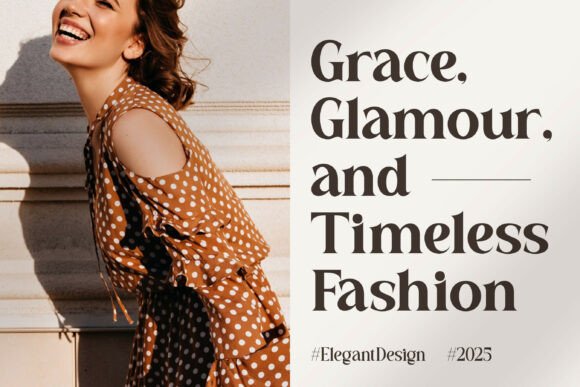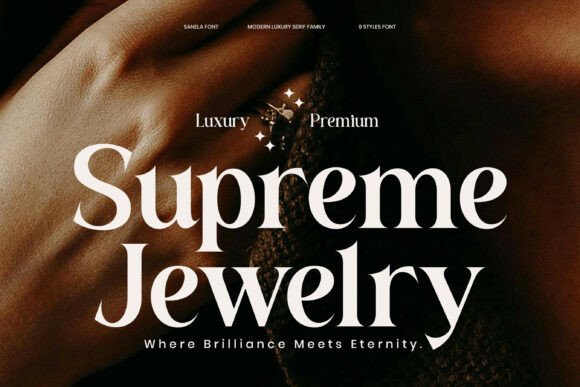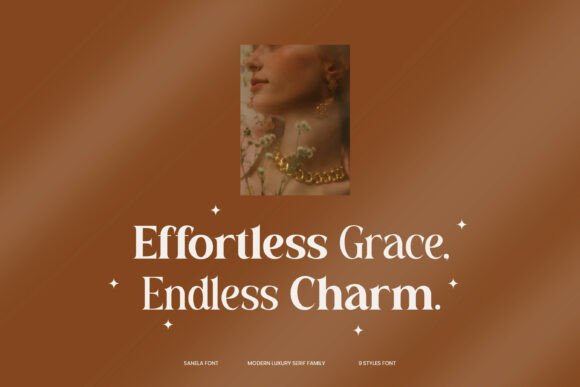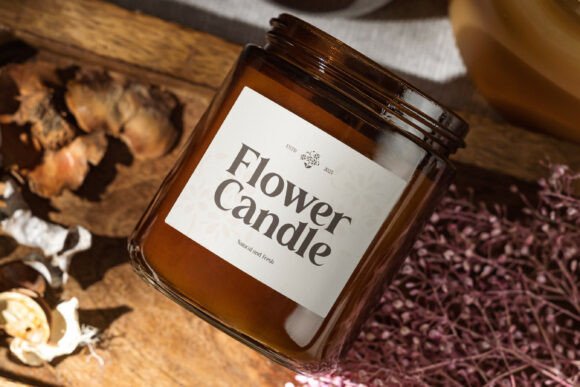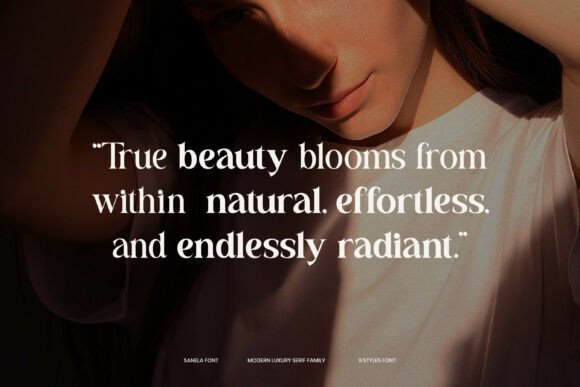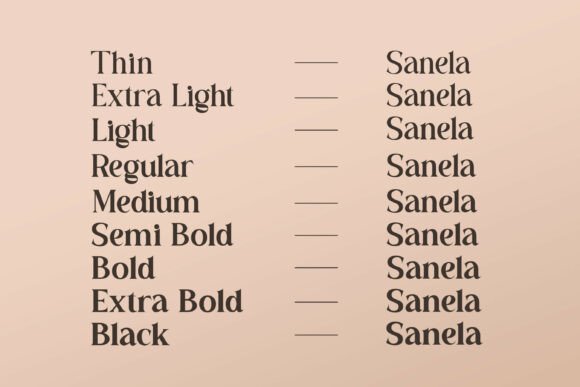
Introduction to Sanela Font
Sanela is a modern luxury serif family font, boasting nine styles of exquisite high-contrast letterforms that command attention with their refined elegance.
This stunning Sanela font redefines classical beauty with its dramatically flared serifs, sharp terminals, and a powerful, sophisticated dance between thick and thin strokes The family’s nine distinct weights offer immense versatility, from delicate, ethereal thinness to bold, impactful statements, making it adaptable across print and digital media.
Key Features of Sanela Font